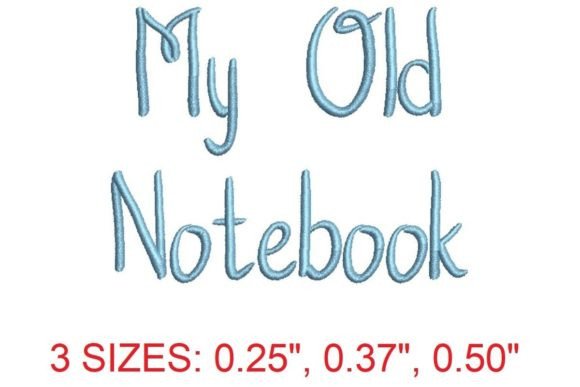
My Old Notebook Embroidery Font
The My Old Notebook Embroidery Font is a nostalgic and versatile design that brings a handwritten charm to any apparel project. As an embroidery designer with years of experience, I've come across countless fonts, but this one stands out for its authenticity and emotional appeal. It's perfect for adding a personal touch to custom apparel, especially for boutique brands looking to connect with their audience on a deeper level.
First Impressions: A Vintage Vibe with Modern Appeal
From the moment I laid eyes on the My Old Notebook Embroidery Font, I was struck by its visual personality. The font has a charming handwritten style that evokes memories of school notebooks, journal entries, and old letters. It feels both casual and elegant, making it ideal for a wide range of projects. The stitching mood is soft and expressive, with enough detail to stand out without overwhelming the fabric.
This font isn't just cute—it has decorative strength. Its curves and flourishes add a sense of warmth and character that can elevate even the simplest designs. Whether you're going for a rustic, playful, or classic look, the My Old Notebook Embroidery Font delivers with a premium feel that fits well in handmade product collections.
Where to Use My Old Notebook Embroidery Font
As a designer working on a small sweatshirt or hoodie collection, I immediately saw the potential for this font in multiple applications. On neutral sweatshirts, it adds a subtle yet meaningful statement. On pastel hoodies, it brings a soft, whimsical energy. On dark apparel, it creates a striking contrast that draws the eye.
It also shines in lifestyle product photos, printable mockups, Etsy listings, and social media graphics. The font’s versatility makes it a valuable addition to any digital embroidery file library.
Practical Considerations for Embroidery Designers
When working with the My Old Notebook Embroidery Font, there are several practical factors to consider. For sweatshirt embroidery, especially on oversized garments, the font’s size and spacing matter. It works best in medium to large sizes, avoiding issues with tiny lettering that may not stitch clearly.
For hoodie chest placement, the font's flow helps it sit nicely on flat surfaces. However, when using it on curved areas like sleeves or back designs, careful placement is key. The font’s organic shape may require some adjustment to ensure it aligns properly with the garment’s contours.
On stretchy fabrics like fleece or ribbed materials, the My Old Notebook Embroidery Font holds up well, provided you use the right stabilizer. Stitch density should be moderate to avoid puckering, especially on delicate or thin fabrics. Testing on scrap fabric before production is always a good idea.
Impact on Brand Identity and Customer Engagement
Using the My Old Notebook Embroidery Font can significantly impact brand identity. It adds a personal, authentic feel that resonates with customers who value handmade products and storytelling. For an Etsy seller or small shop product, this font can help create a cohesive visual language that sets your collection apart.
It also enhances buyer trust and product recognition. When customers see consistent design elements across your offerings, they begin to associate those elements with your brand. This visual consistency is crucial for commercial embroidery and digital embroidery file sales.
Moreover, the font’s nostalgic appeal can drive customer engagement. People often connect emotionally with vintage-style designs, making them more likely to share, purchase, and return for more.
Design Notes for Creative Fabrica Users
If you're a Creative Fabrica user, the My Old Notebook Embroidery Font is worth exploring for your next project. Before purchasing, double-check the product details to confirm file formats, hoop size, and machine compatibility. While the description mentions a vintage touch, specific technical details like stitch count or licensing aren’t included, so it's important to verify these before production.
As a designer, I always recommend testing the font on similar garment fabric to see how it behaves. Check thread color contrast, review stabilizer choices, and inspect stitch density to ensure the final result meets your standards. Whether you're creating custom apparel for a boutique brand or preparing small shop product for sale, the My Old Notebook Embroidery Font offers a unique and effective solution.